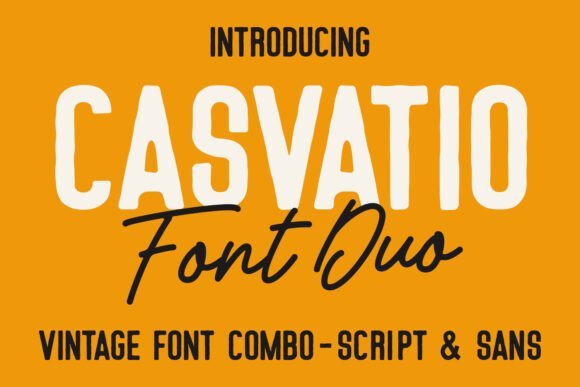
Introduction to Casvatio Duo Font
Casvatio Font Duo is a masterfully paired typography set designed to bring an authentic, handcrafted feel to your creative projects.
This combo features a bold, rugged Sans Serif with slightly rounded edges and a fluid, elegant Signature Script that flows with natural grace Inspired by classic signage and mid-century adventure aesthetics , Casvatio is the perfect choice for logos, design, brewery branding, social media quotes, and vintage style.
Key Features of Casvatio Duo Font
Why Choose Casvatio Duo Font?
Casvatio Duo Font offers exceptional quality and versatility, making it a valuable addition to your design toolkit. Whether you’re creating for personal projects or commercial use, Casvatio Duo Font delivers professional results.